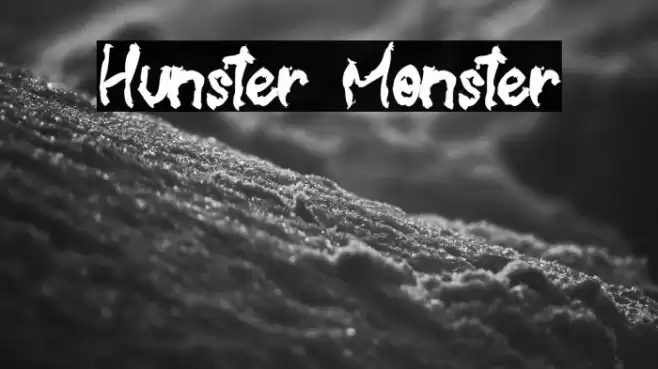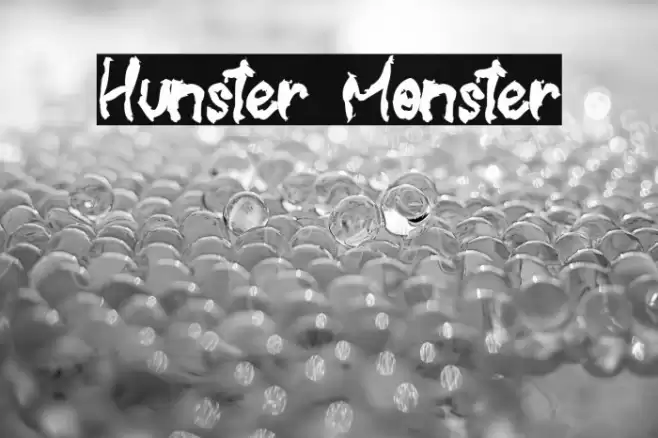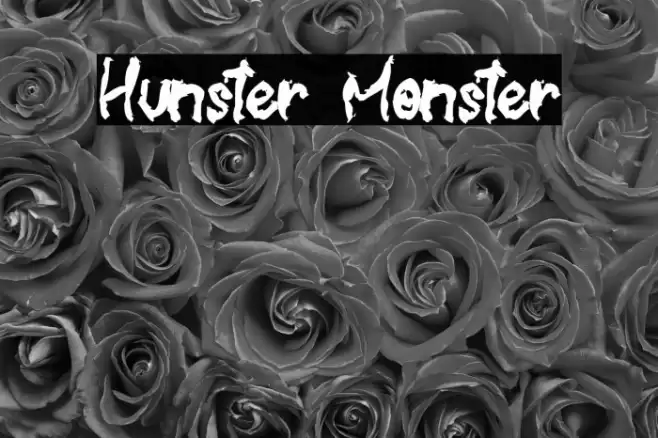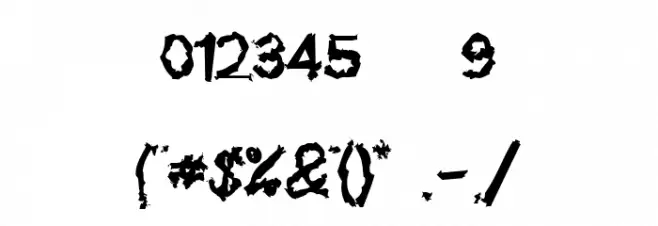
Hunster Monster Font
Hunster Monster Description
This font features a bold and rugged design, with each character appearing as if it has been roughly painted or drawn with a brush. The edges are irregular and jagged, giving it a raw and dynamic feel. The uppercase and lowercase letters maintain a consistent style, with a slightly chaotic yet artistic appearance. Numbers and special characters follow the same aesthetic, ensuring a cohesive look across all elements. This font's unique style makes it stand out, perfect for projects that require a touch of edginess and creativity.
A bold, rugged font with a hand-painted, artistic style from Regular fonts.
- Proposed Projects: Ideal for horror-themed posters, edgy branding, album covers, and creative design projects.